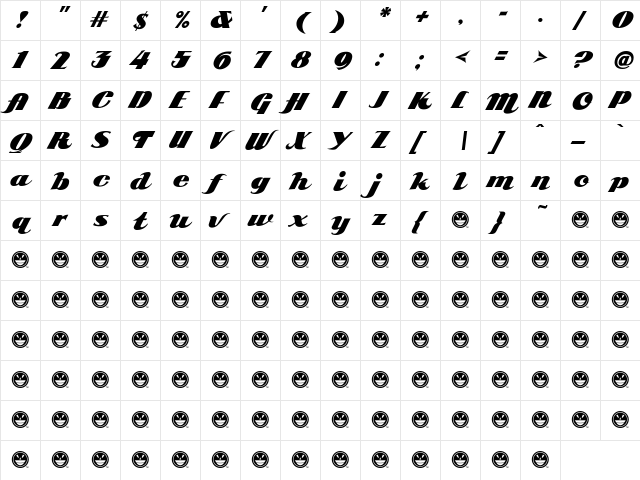
ARB 85 Poster Script JAN-39 Regular
Design Context for ARB 85 Poster Script JAN-39 Typeface
ARB 85 Poster Script JAN-39 flows with the natural rhythm of handwritten lettering, making it ideal for designs that call for warmth and personal expression.
Font Pairing: Combine ARB 85 Poster Script JAN-39 with a simple geometric sans for maximum contrast — the tension between flowing curves and clean structure is a classic typographic pairing.
Pro Tip: Use ARB 85 Poster Script JAN-39 for short runs of text — names, titles, or taglines. Extended body copy in script faces tires the eye quickly.